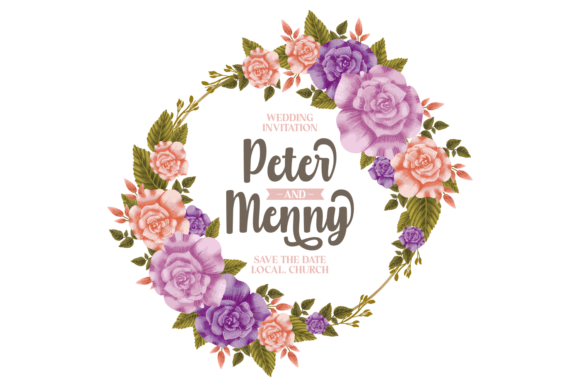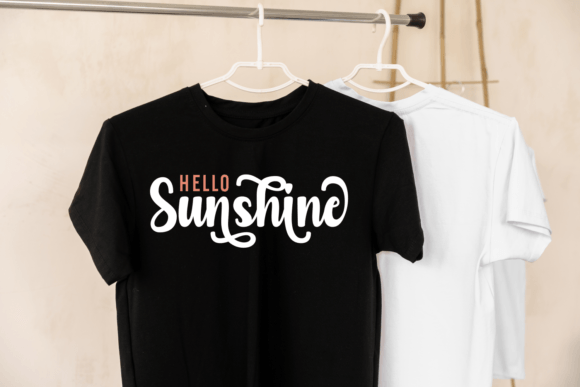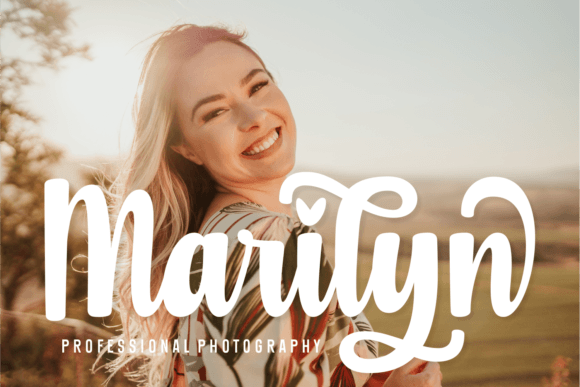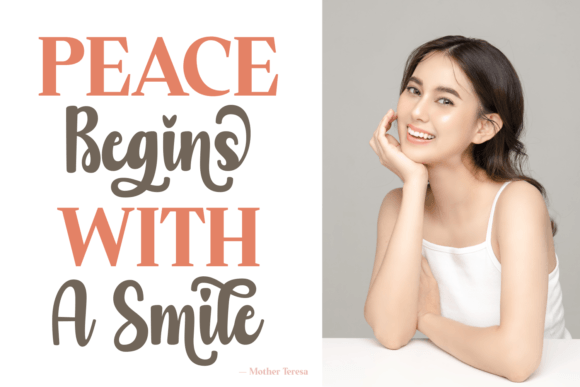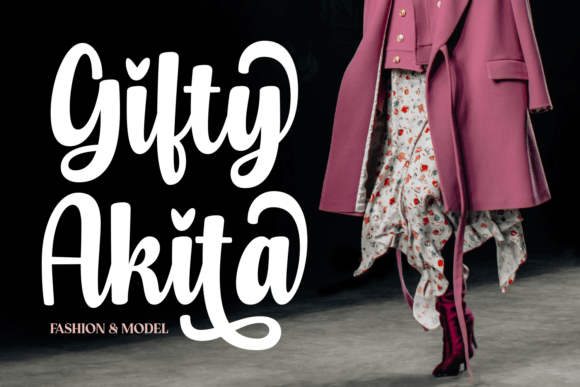
Introduction to Smiled Again Font
As designers, we’ve all been there – staring at a blank canvas, trying to capture the perfect mood for our next creative project. The pressure to create something unique and engaging can be overwhelming, but what if you had the perfect tool to bring your vision to life? Enter the charming Smiled Again Font, a delightful handwritten font that’s sure to add a personal touch to your designs.
With its smooth, flowing strokes and friendly character, Smiled Again Font is perfect for designers looking to add warmth and personality to their projects. Whether you’re working on invitations, greeting cards, or cozy branding, this high-quality font is sure to make your designs stand out. And the best part? It’s available for free download, making it an essential resource for any designer looking to elevate their creative project.
So, what makes Smiled Again Font so valuable for designers? For starters, its transparent background makes it easy to work with, and its charming character adds a touch of personality to any design. With Smiled Again Font, you can create high-quality designs that truly reflect your unique style and vision.
Key Features of Smiled Again Font
- High-quality design resource ideal for creative projects, featuring a unique and playful smile design.
- Transparent background, making it easy to overlay on any image or design element without compromising the integrity of the font.
- Perfect for use in digital designs, such as logos, social media graphics, and web content, due to its high-resolution design.
- Features a wide range of glyphs and characters, ensuring that users have a comprehensive set of tools to create engaging and professional designs.
- Supports various languages, making it a versatile design resource for creative professionals and hobbyists alike.
Honest Review: Smiled Again Font
As a designer, I’m always on the lookout for high-quality design resources to elevate my creative projects. Recently, I had the chance to work with the Smiled Again Font, and I’m excited to share my honest review.
Here are some aspects that work well with the Smiled Again Font:
- ✨ High-quality design: The font has a clean and modern aesthetic that’s perfect for various creative projects.
- ✨ Transparent background: The font’s transparent background makes it easy to work with, allowing for seamless integration into designs.
- ⚠️ Limited font styles: The font only comes in a few styles, which might limit its versatility in certain designs.
- ⚠️ Not suitable for all projects: The font’s modern aesthetic might not be suitable for more traditional or formal designs.
Overall, I’m impressed with the Smiled Again Font and would recommend it for designers looking for a high-quality, free design resource. While it has its limitations, it’s a great addition to any design toolkit.
Tips for Getting the Most Out of Smiled Again Font
Use the font in combination with other design elements to create a visually appealing design. Experiment with different font sizes, colors, and styles to find the perfect balance for your creative project. You can also use the font with a transparent background to create a sense of depth and dimension.